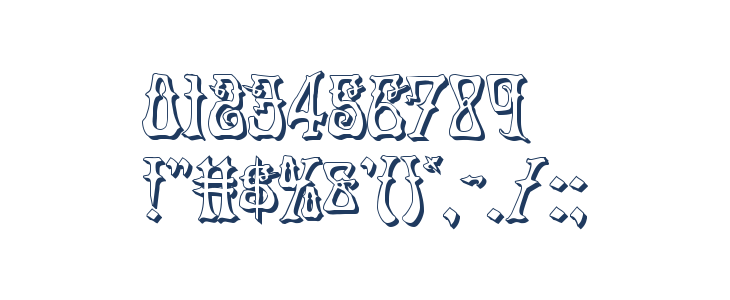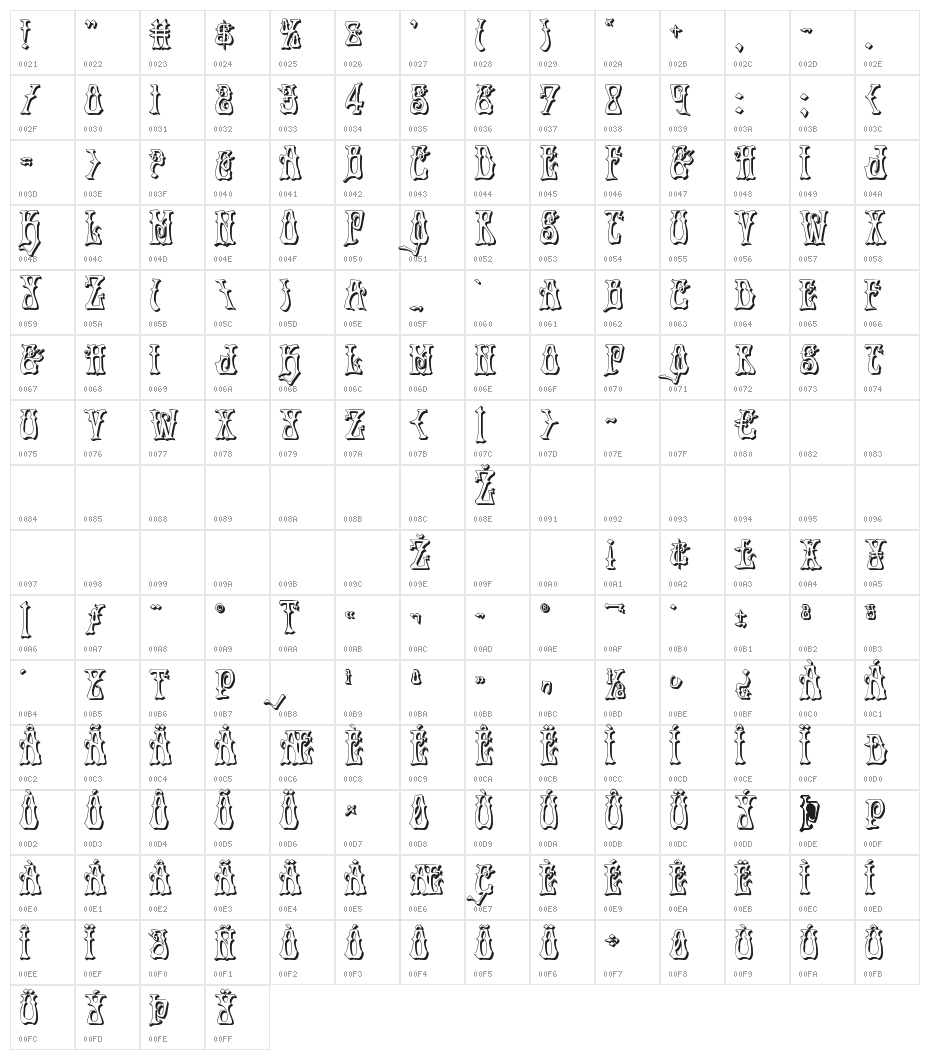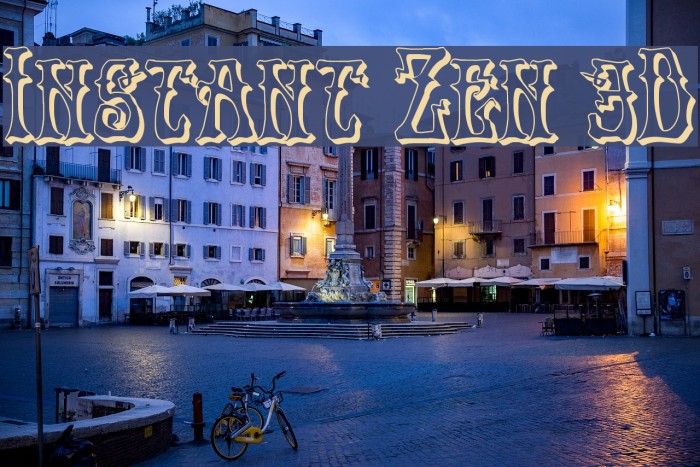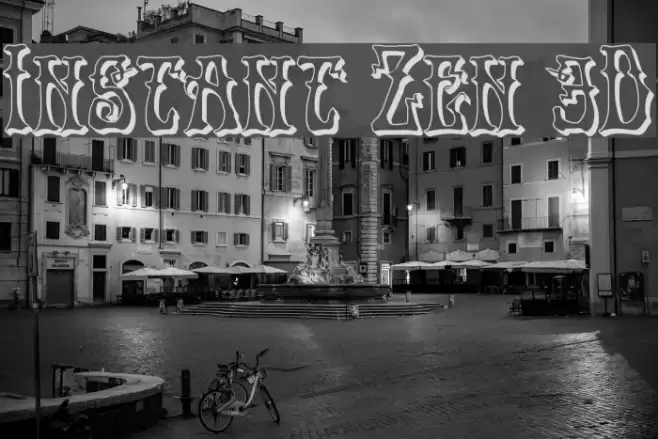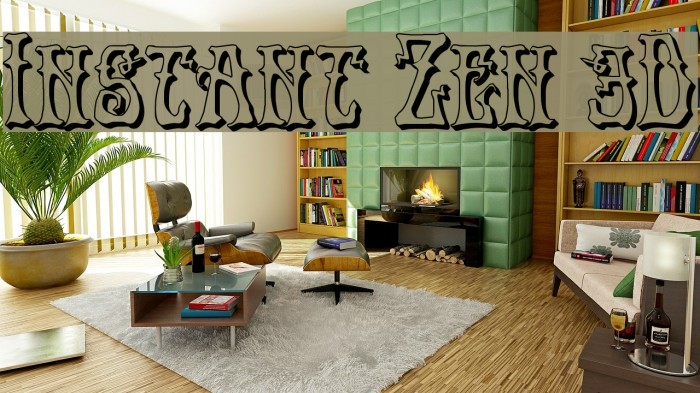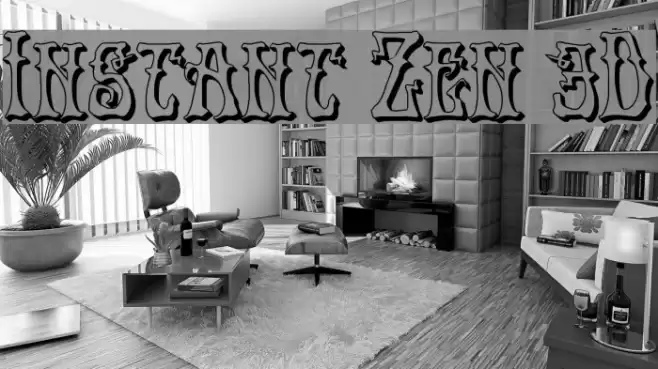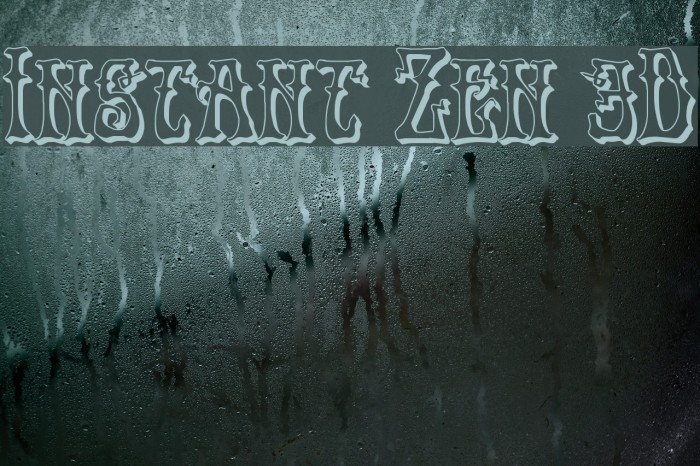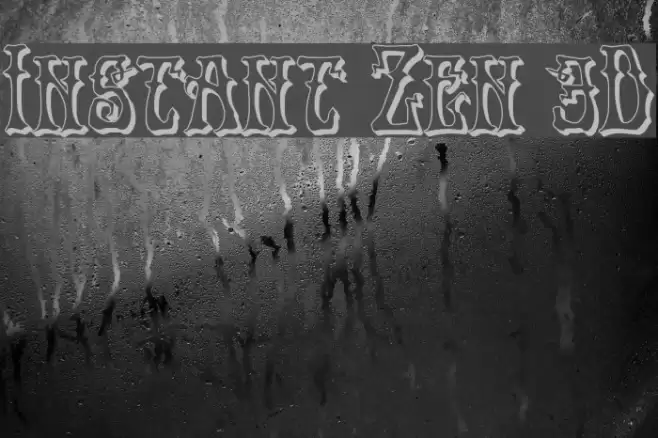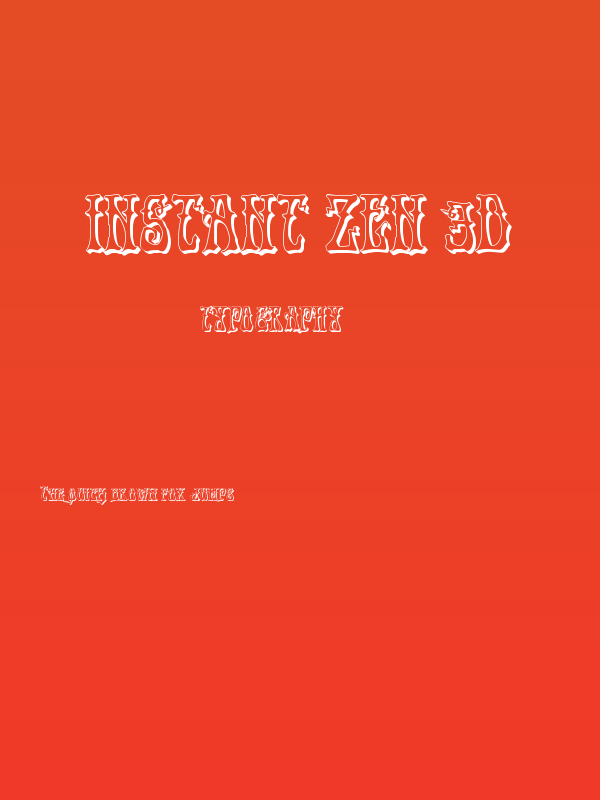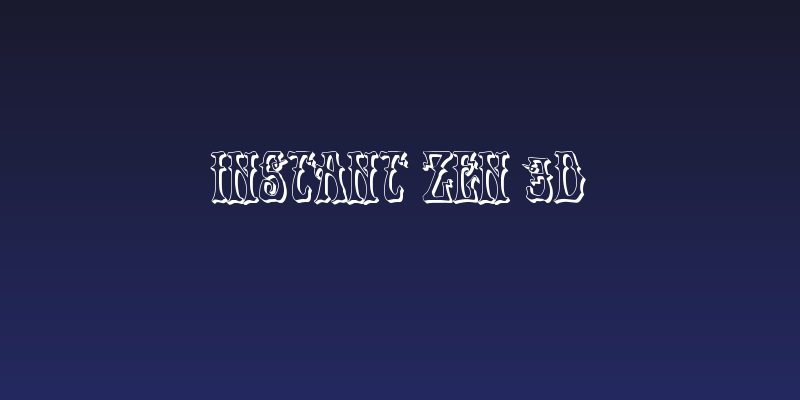
Instant Zen 3D Font
Instant Zen 3D Description
This font features a bold and decorative style with a 3D effect, characterized by thick outlines and intricate inner detailing. The letters have a gothic influence, with sharp edges and dramatic curves that create a striking visual impact. The uppercase and lowercase letters maintain a consistent design, enhancing the font's cohesive appearance. Numbers and special characters are crafted with the same attention to detail, making them stand out. The overall design is both artistic and bold, suitable for projects that require a strong visual presence.
| Proposed Projects | Ideal for posters, album covers, branding, and any project needing a bold, artistic touch. |